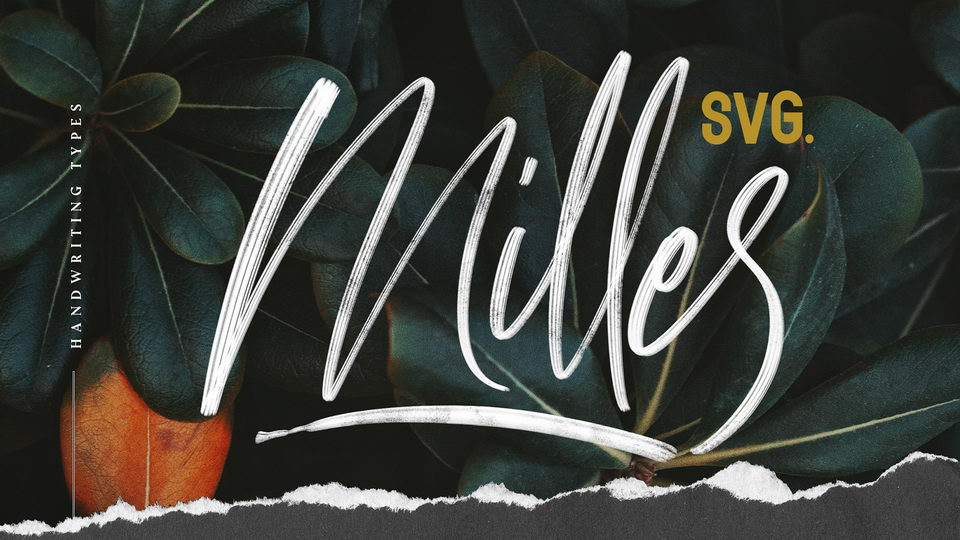
Download Milles font, a stylish modern calligraphy script that comes with transparant style and original ink. Milles font is matching for wedding, invitation, branding, social media posts, advertisements, product packaging, label,
Designer: Fortunes Co